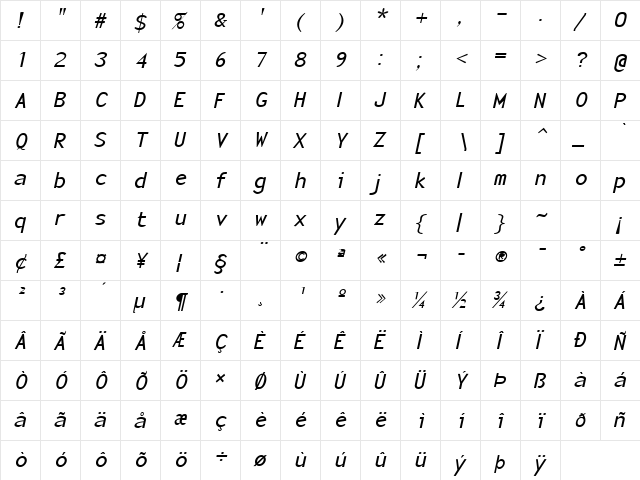
Sensor Italic
Design Context for Sensor Typeface
Sensor is a composed and adaptable typeface that performs quietly and consistently across a wide range of design contexts. Its italic angle brings a sense of urgency and motion to the letterforms.
Pro Tip: Try Sensor for annotation and caption copy alongside an upright companion — the contrast in angle creates a dynamic but ordered typographic system.